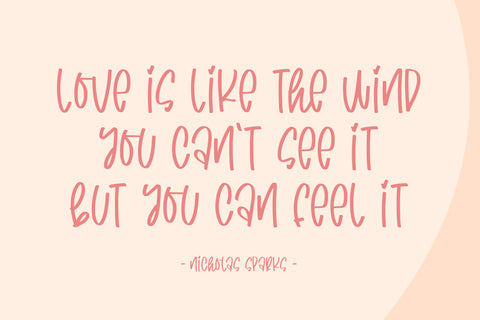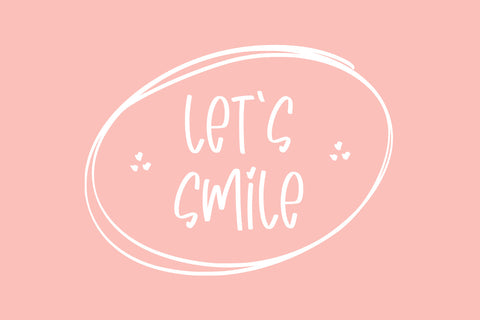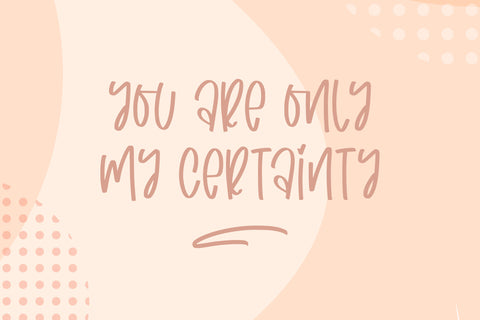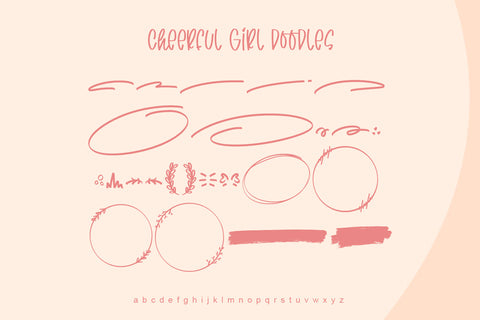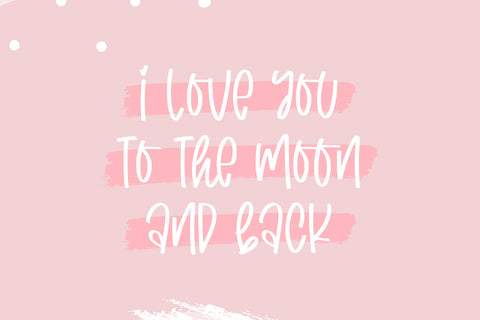
Cheerful Girl
introducing
CHEERFUL GIRL
- handwritten font with doodles -
Cheerful girl is natural handwritten font.
It is great for quotes, cards, banners, books, cutting, silhouettes, social media content and anything of craft project.
I created the doodles to make this product perfect. and it is very easy to access.
- Number & punctuations
- Multilingual
- Doodles